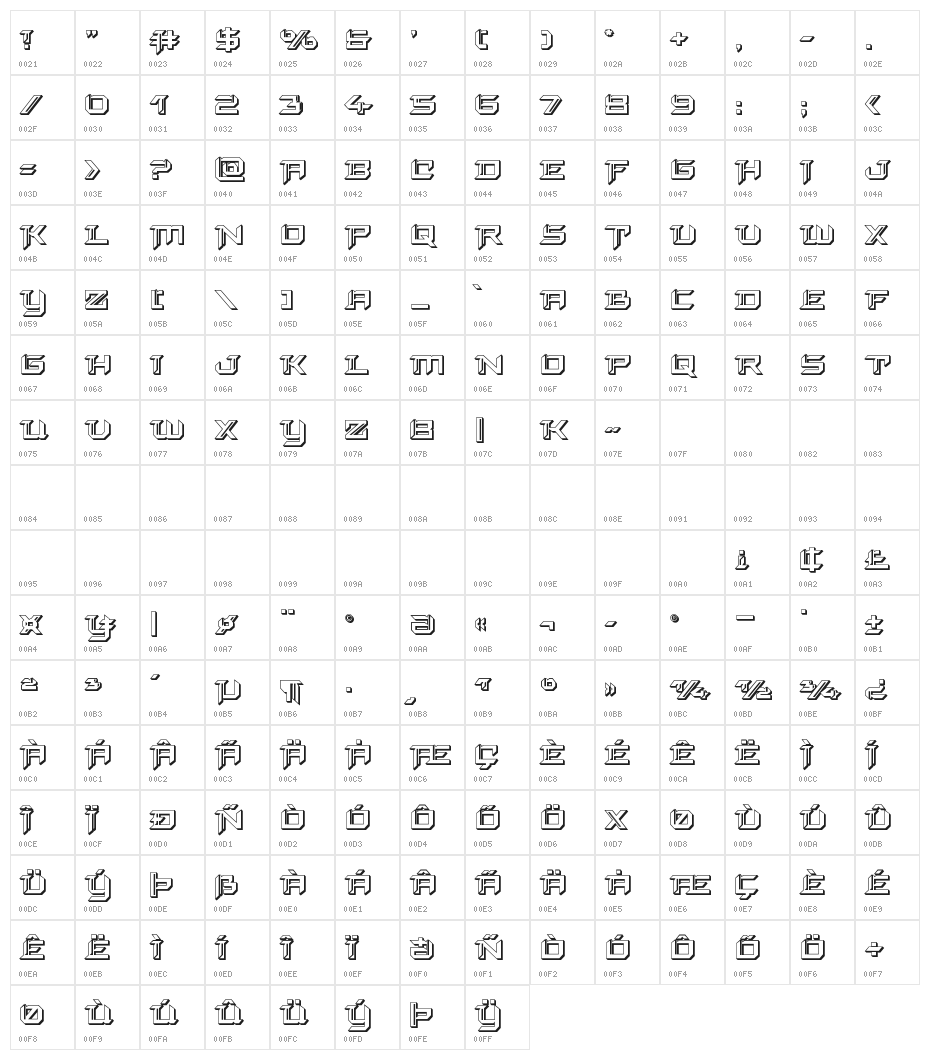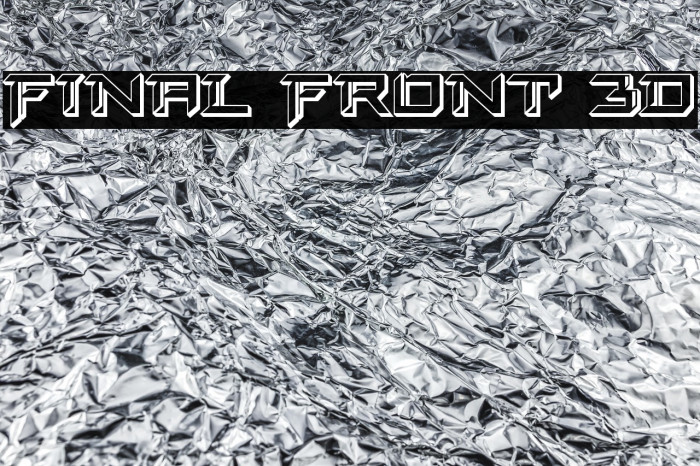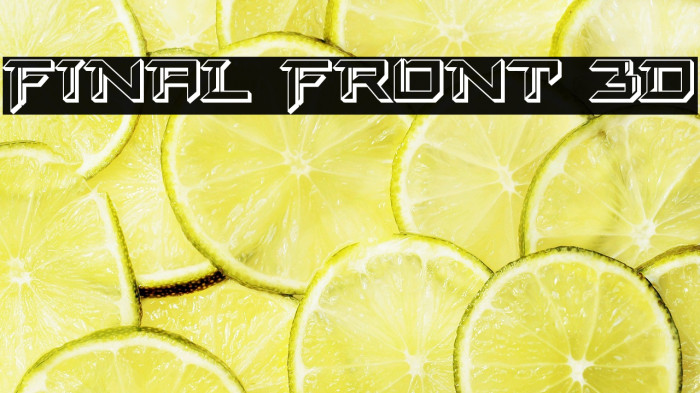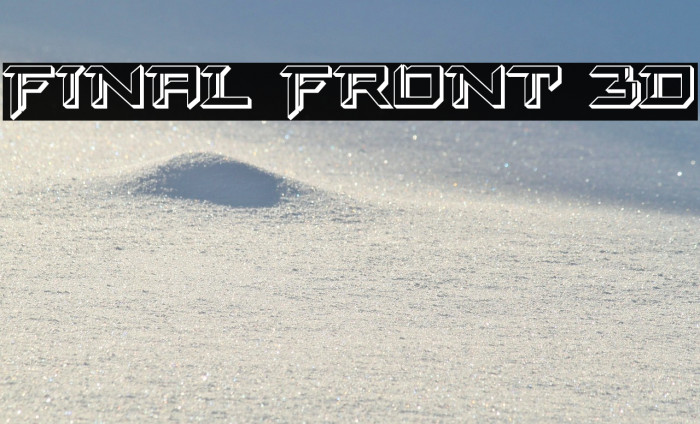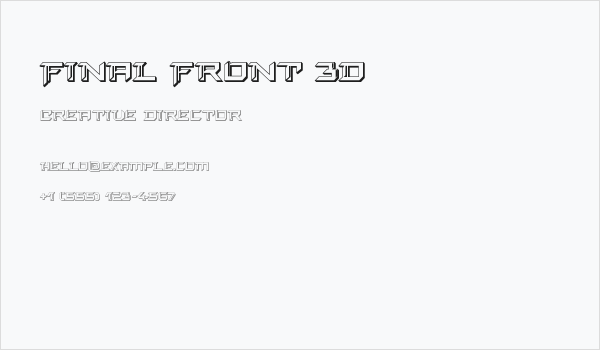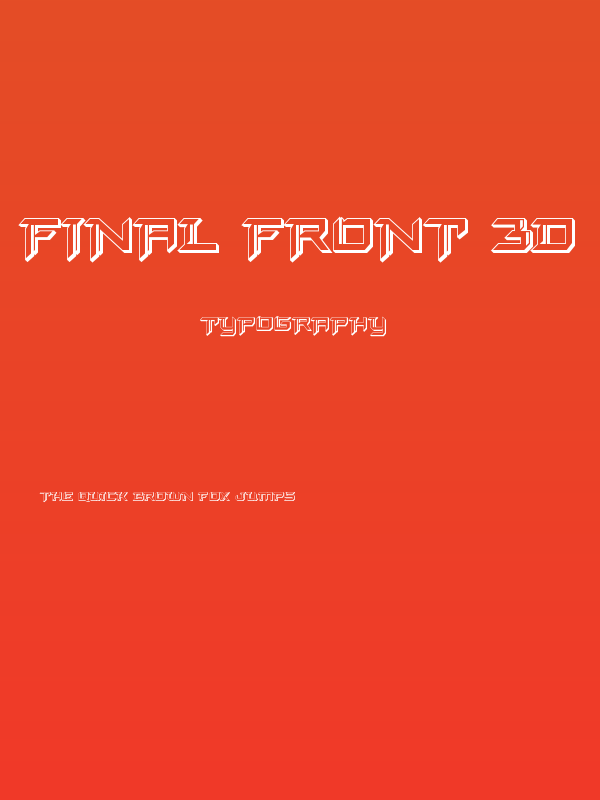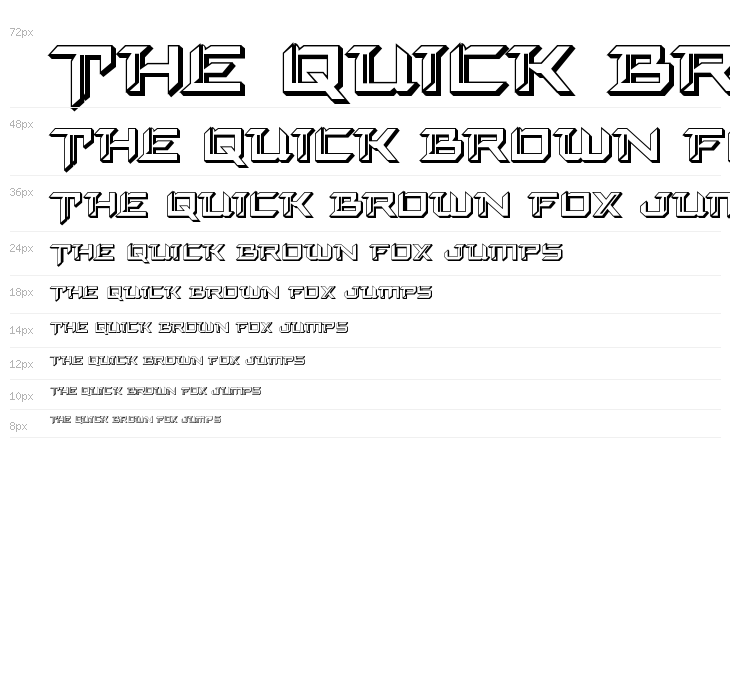
Final Front 3D Font
Final Front 3D Description
This font features a bold, three-dimensional design with a futuristic and geometric aesthetic. Each character is outlined with a shadow effect that gives it a striking, layered appearance. The uppercase and lowercase letters maintain a consistent style, with sharp angles and clean lines that contribute to its modern and edgy look. The numerals and special characters are designed to match the boldness and dimensionality of the alphabet, making the font highly cohesive. Its unique style makes it ideal for projects that require a standout, eye-catching typeface.
| Overall Style | Futuristic |
| Proposed Projects | Ideal for video game titles, sci-fi movie posters, technology branding, and futuristic event flyers. |